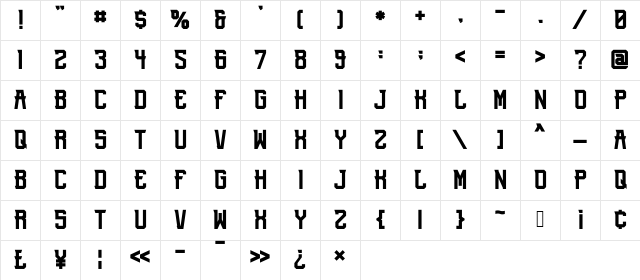
Waruna Regular Free Font
Waruna Regular
Design Context for Waruna
Waruna is a composed and adaptable typeface that performs quietly and consistently across a wide range of design contexts.